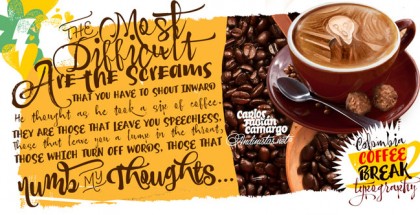
Blog Script by Sudtipos
Blog Script is a contemporary handwritten typeface which is the result of the collaboration between Alejandro Paul – the famous co-founder of Sudtipos type foundry and the young and very promising Argentine designer Carolina Marando. This is the second project they realize together after the successful Distillery font family. This time they provide us with a great decorative script with strong individual appearance and natural flavor. It is supplied in two weights – Light and Regular with alternates for most letters and can be used for many purposes – posters, advertising, covers, greeting cards, wedding stationery, toy packaging and many more.
Of course, there are many things that can be said about Blog Script – it is organic, rough, informal, beautiful, intense, etc. However, we believe that it is best described by the authors as a way of celebrating individuality and freedom of spirit. It is their way to express their nostalgia for times that are due to fade slowly – the times of intense physical communication, of creativity and imagination. Blog Script is their best means to express themselves in our ever hastier digitalized world, the means to loudly state that people are still unique and it still takes all kinds to make a world.